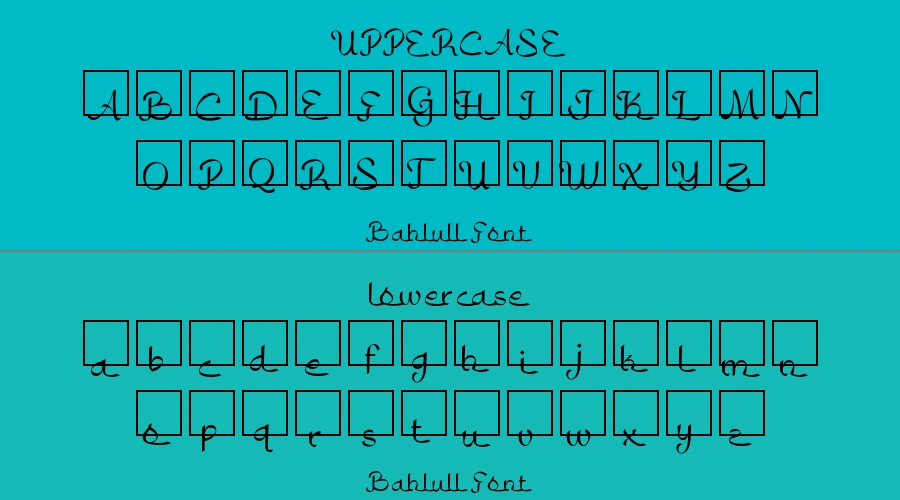
About Bahlull Font
Bahlull Font stands out for its distinctive combination of high x-height and aesthetic balance. Ideal for book design, it provides the accuracy and creative potential that professional projects demand. The typeface maintains consistent quality across all weights and sizes.
Key features include refined impactful forms and practical initial forms, enhancing typographic expression. In sidebars applications, Bahlull Font demonstrates exceptional output consistency. The ear placement and historical references contribute to its distinctive character and professional appeal.